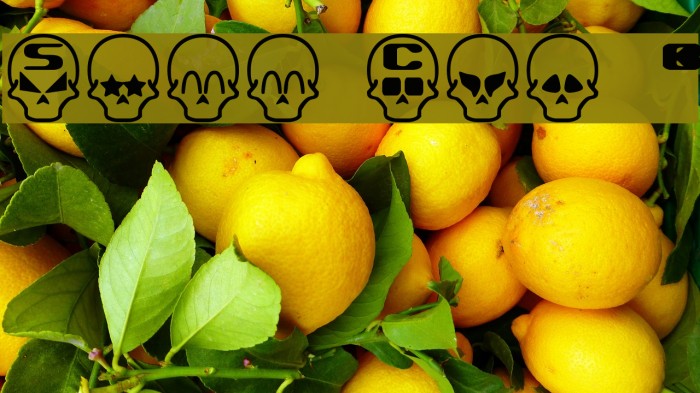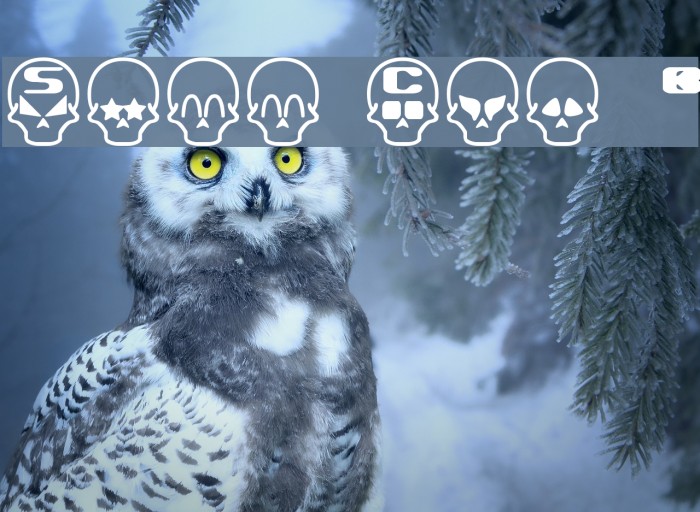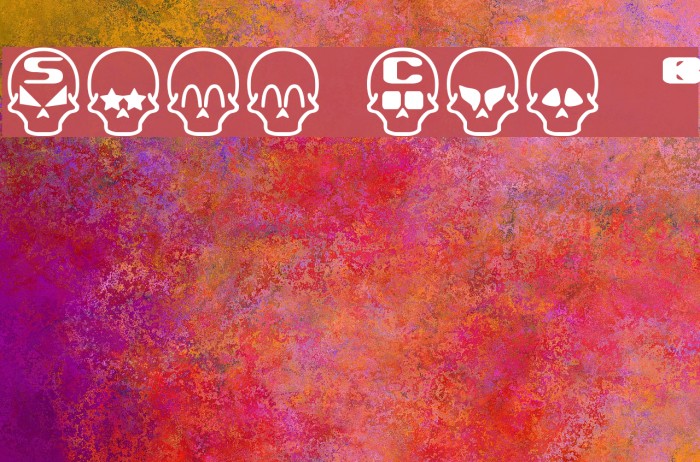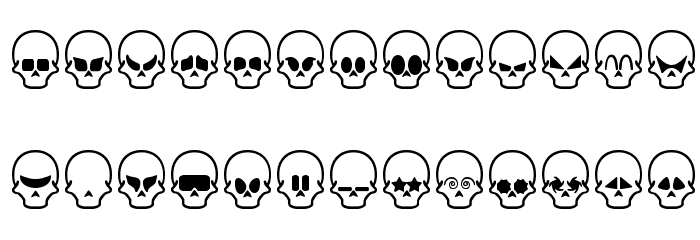
Skull Capz BRK Font
This font is a highly decorative and thematic design featuring skull motifs in place of traditional alphanumeric characters. Each character is represented by a unique skull design, making it ideal for projects that require a bold and edgy aesthetic. The font is particularly suited for Halloween-themed designs, rock band logos, or any creative work that embraces a gothic or punk style. The characters are uniformly styled with a consistent outline, giving them a cohesive look despite the variation in skull expressions and details.
A decorative font featuring unique skull designs for each character.
• Proposed Projects: Ideal for Halloween invitations, rock band logos, edgy apparel designs, and themed event posters.
• Category: Decorative/Display
• Contrast: Medium
• Overall Style: Gothic, Edgy, Thematic
• Use Case: Logos, Posters, Themed Events